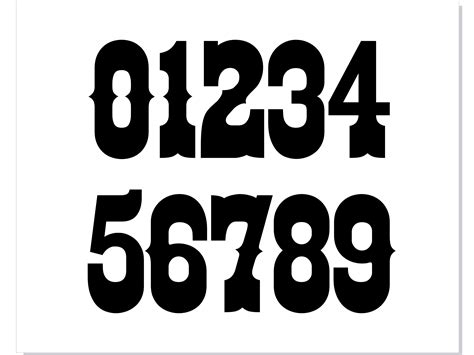
Get Your Digits on Display: Unleash Creativity with Free Western Font Numbers
Do you want to add a unique touch to your designs? Are you tired of using the same old boring numbers? Look no further, because we have the solution for you.
Introducing free western font numbers, the perfect way to unleash your creativity and elevate your designs. With a variety of styles and designs to choose from, you can find the perfect fit for any project.
Did you know that incorporating unique fonts and designs in your work can increase engagement and make your content stand out? That's right, adding a personal touch can make all the difference, and free western font numbers are an easy and cost-effective way to do just that.
Whether you're working on a poster, invitation, or any other design project, free western font numbers can add a touch of personality and flair that will impress your audience. Plus, with no cost to use them, you can get creative without breaking the bank.
So, what are you waiting for? Get your digits on display and start exploring the world of free western font numbers. Your designs will thank you.
Numbers are often an overlooked aspect of graphic design, but they can make a big impact on the overall aesthetic. If you're looking to add some personality to your designs, free western font numbers could be just the thing you need.
What are Free Western Font Numbers?
Free western font numbers are typography designs inspired by the wild west. They typically feature bold, blocky numbers with a western flair. Some even include features like serifs and stylized edges to add extra character.
Why Use Free Western Font Numbers?
Using free western font numbers in your designs can add a sense of fun and whimsy. They may be particularly appropriate for designs focused on themes such as cowboys, rodeos, or other western imagery. Additionally, they can be a great way to add contrast to more traditional fonts and create a unique visual style.
Where to Find Free Western Font Numbers?
Opinion
Overall, free western font numbers are a great way to add some personality to your designs. Both DaFont and 1001 Fonts offer good options with their own strengths and weaknesses. Depending on your needs and preferences, one site may be a better fit than the other. However, regardless of which site you choose, incorporating western font numbers into your designs can help you unleash your creativity and take your designs to the next level.
Don't overlook the impact of numbers in your designs. With free western font numbers, you can add fun and style to your work. Take some time to explore different options from sites like DaFont and 1001 Fonts, and experiment with how you can incorporate them into your designs. Happy creating!